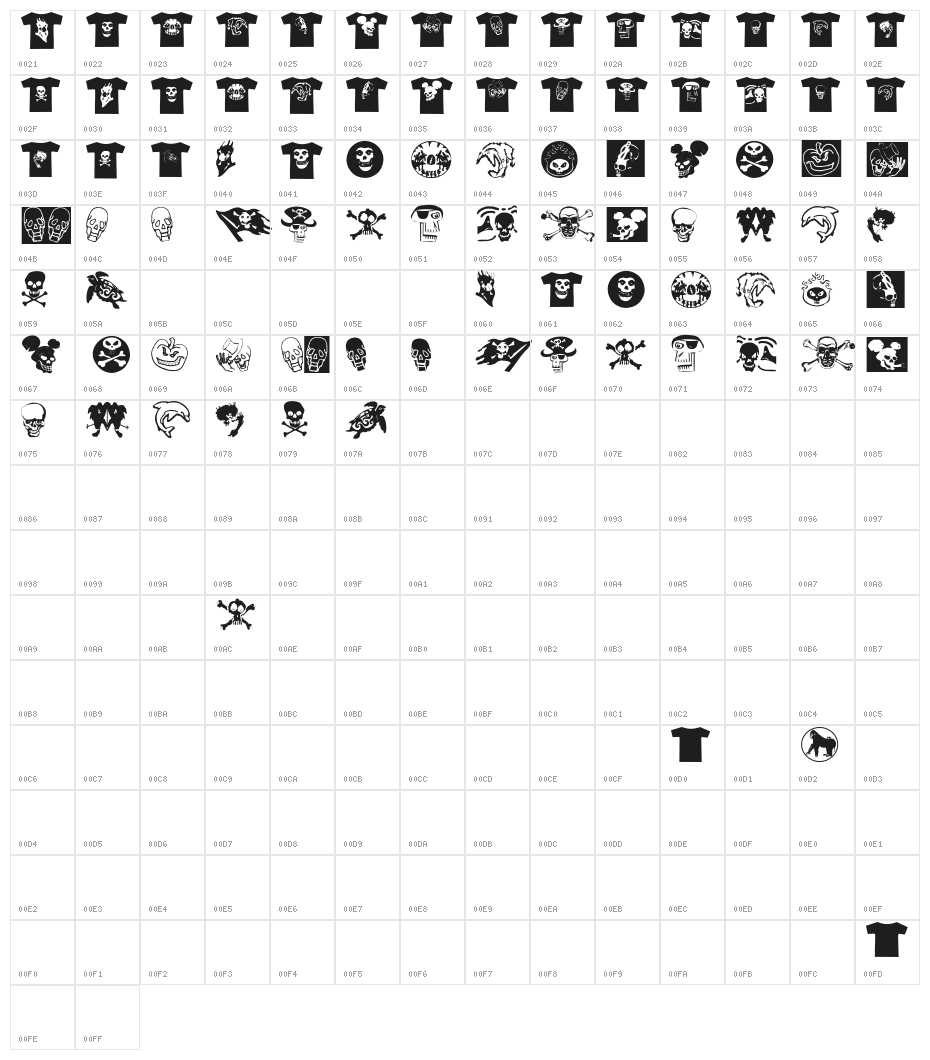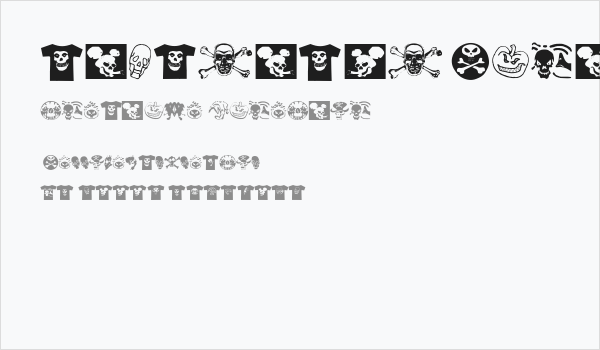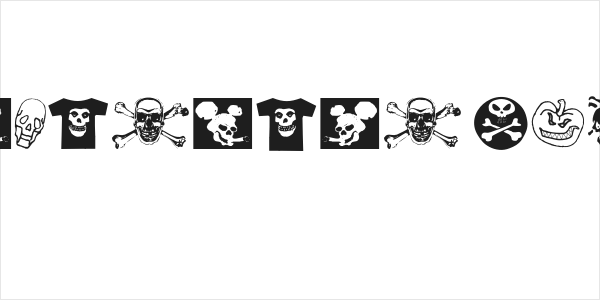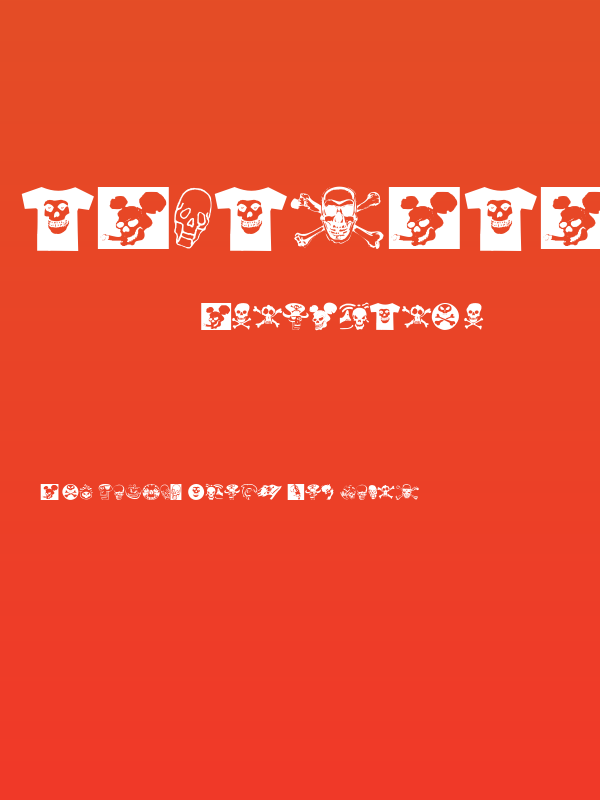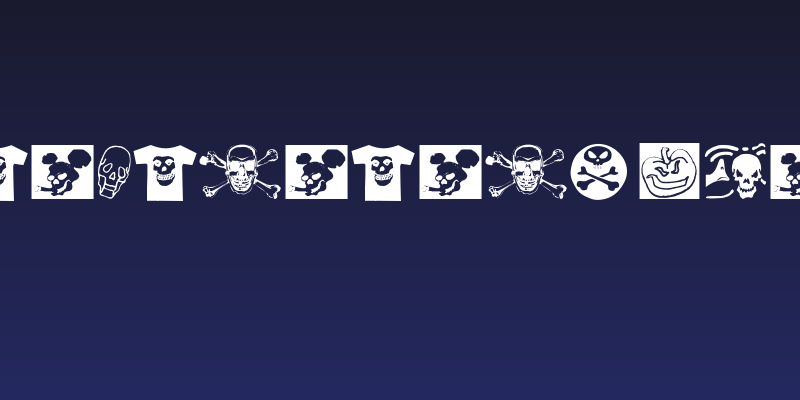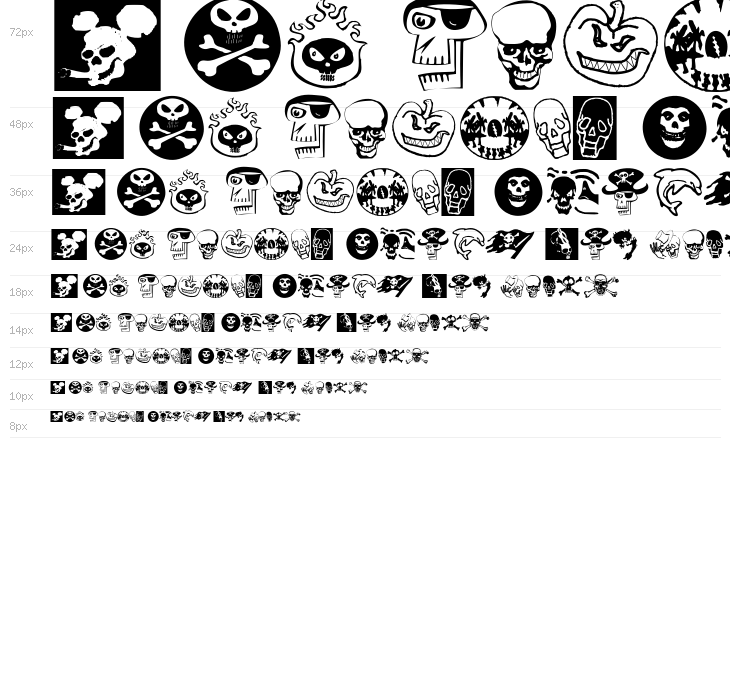
AtLastATshirt Font
AtLastATshirt Description
A decorative display font featuring bold, hand-drawn illustrations of skulls, skeletons, pirate motifs, and t-shirt icons in both filled and outline styles. The glyphs are highly stylized, playful, and cartoonish, with a strong emphasis on visual motifs rather than traditional letterforms.
| Overall Style | Playful, Decorative, Cartoonish |
| Use Case | Logos, Posters, Merchandise, Themed Graphics |
| Proposed Projects | Halloween posters, party invitations, themed merchandise, children's event flyers, novelty t-shirt designs. |